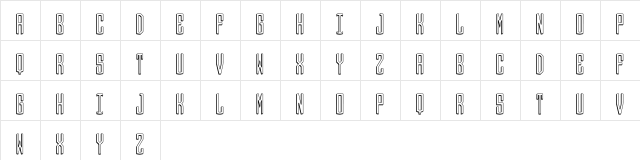
Round_3D_Monogram_Center Regular
Design Context for Round_3D_Monogram_Center Typeface
Round_3D_Monogram_Center uses fixed-width spacing throughout, giving it the structured, systematic character associated with coding environments and technical documentation.
Pro Tip: Pair Round_3D_Monogram_Center with a proportional sans for UI contexts where code-style labels and regular body copy need to coexist.